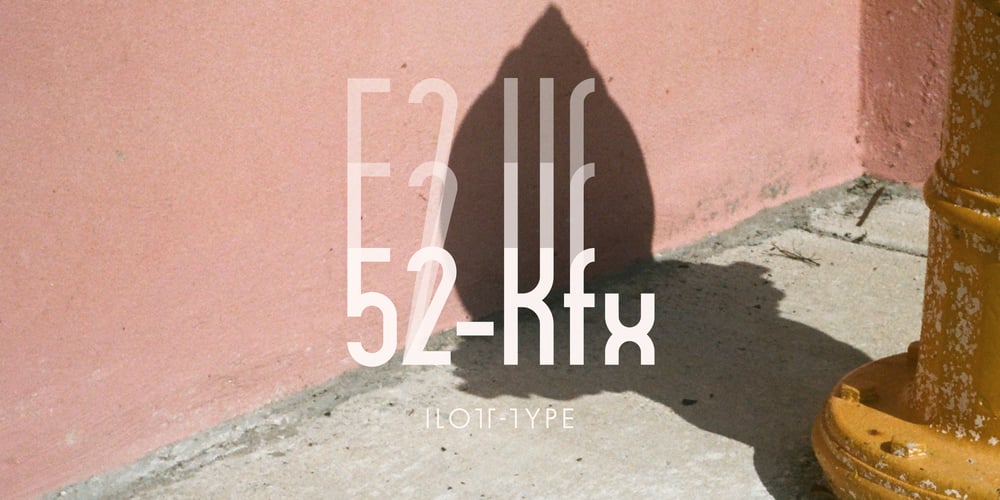
52-Kfx
52-Kfx font
52-Kfx Font Family was designed by Andrew Bellamy and published by ILOTT-TYPE. 52-Kfx contains 3 styles and family package options. Where most fonts are available in varying weights, 52-Kfx is a family consisting of 3 heights; High, Mid and Low. These offer the typographer a full palette, Low is readable for setting copy while at the opposite end High is better suited for display—names, headlines and logotypes. 52-Kfx has a sophisticated and elegant period feel with clean, modern lines that remain relevant for contemporary application. Exaggerated ascenders and descenders of the lowercase and a tall cap-height give it a lofty stature while the low x-height keeps characters grounded. The spacing and lyrical rhythm are perfectly in sync and epitomized by the fluidity seen in the ligatures.